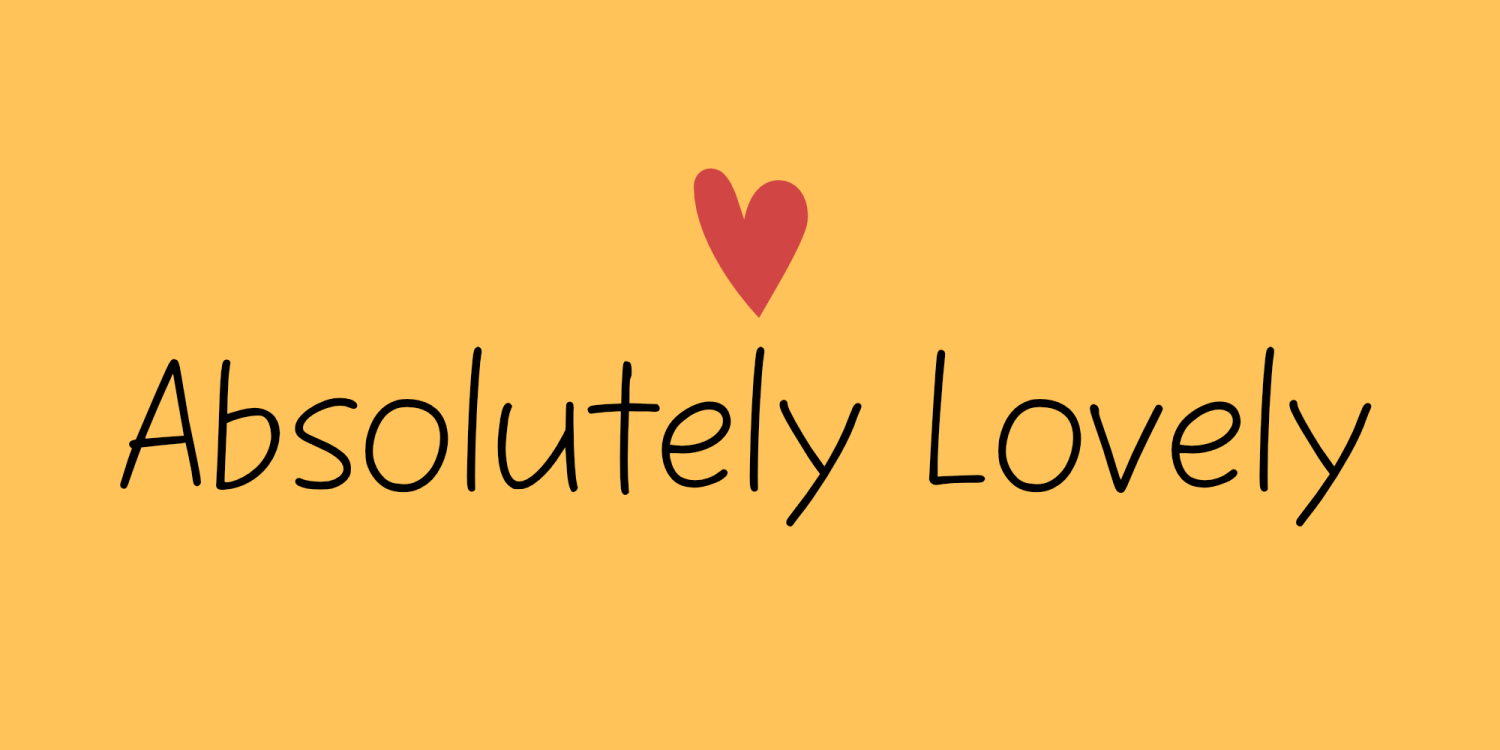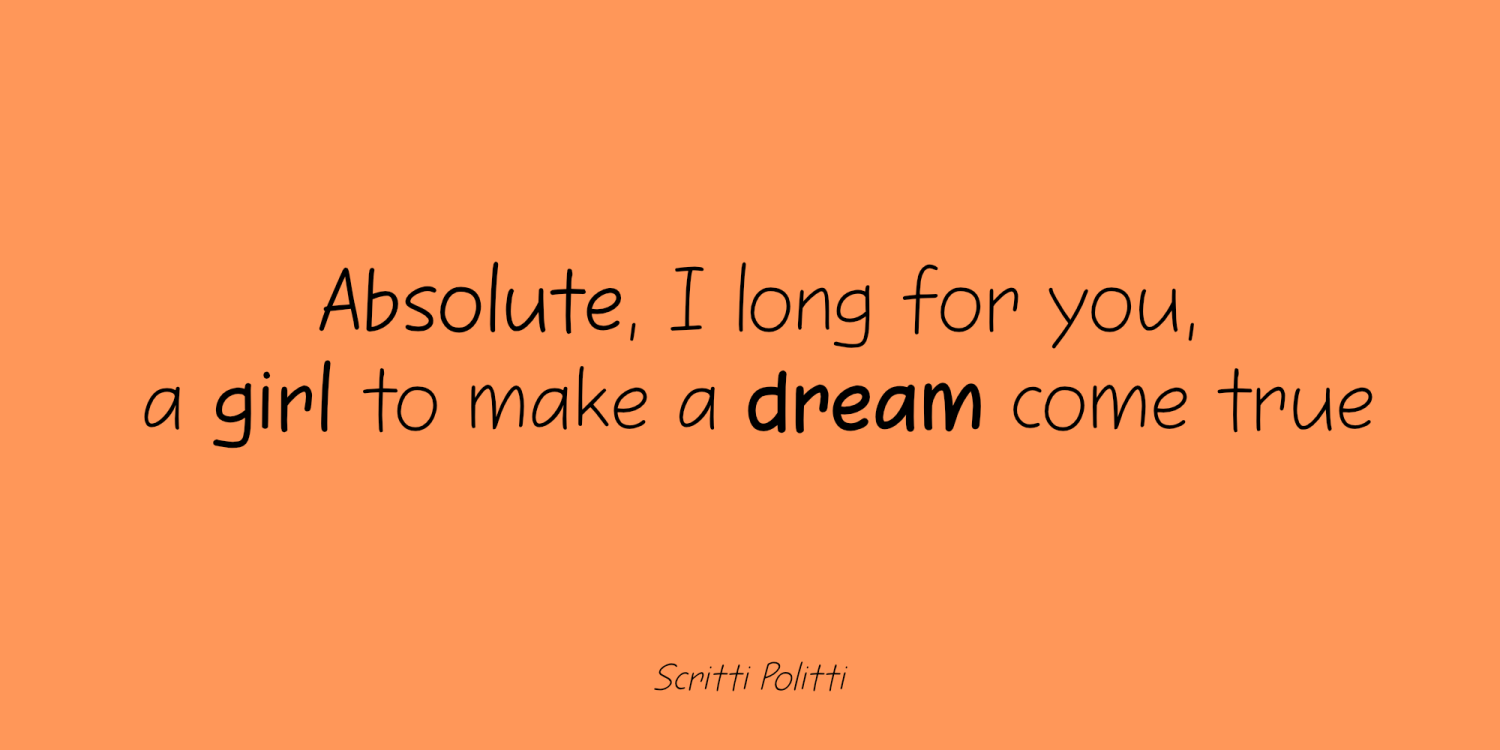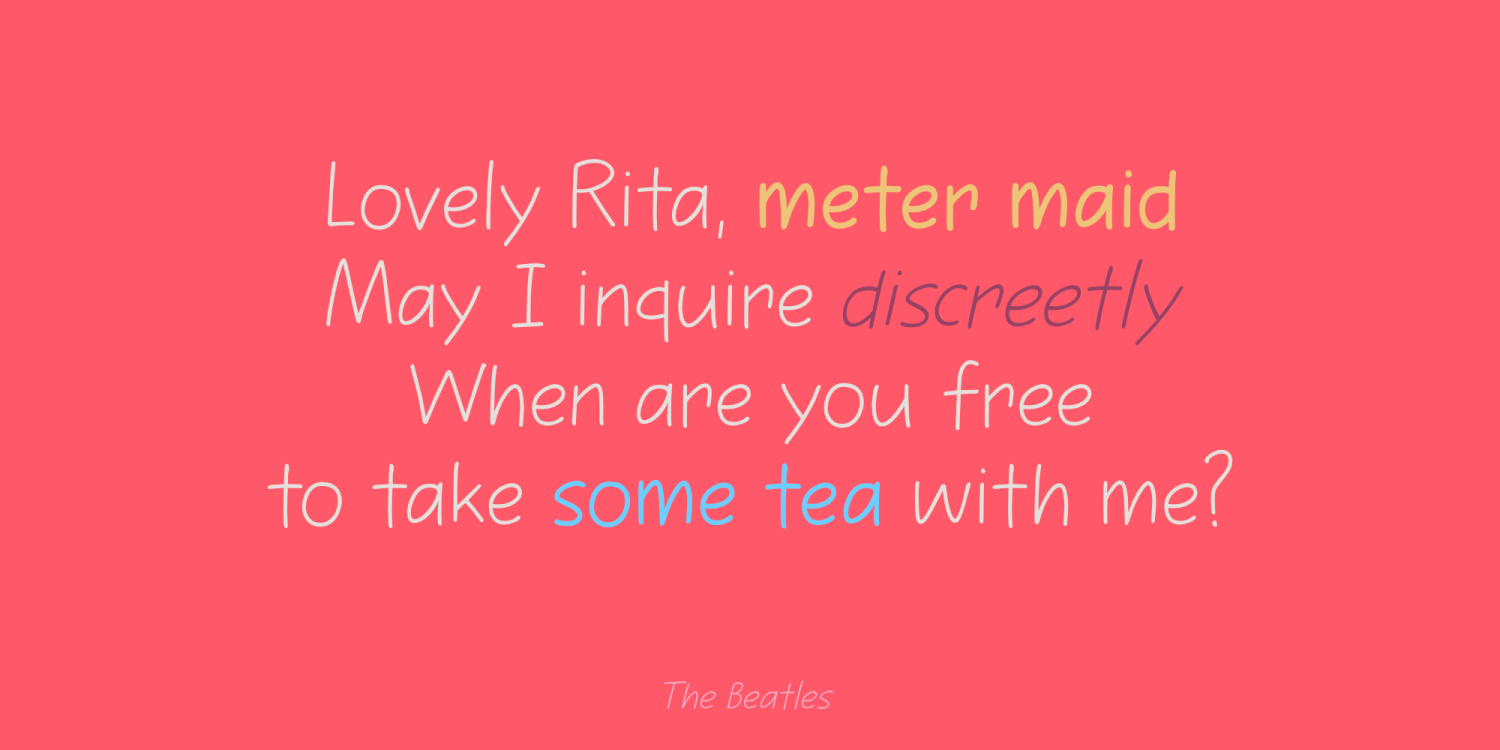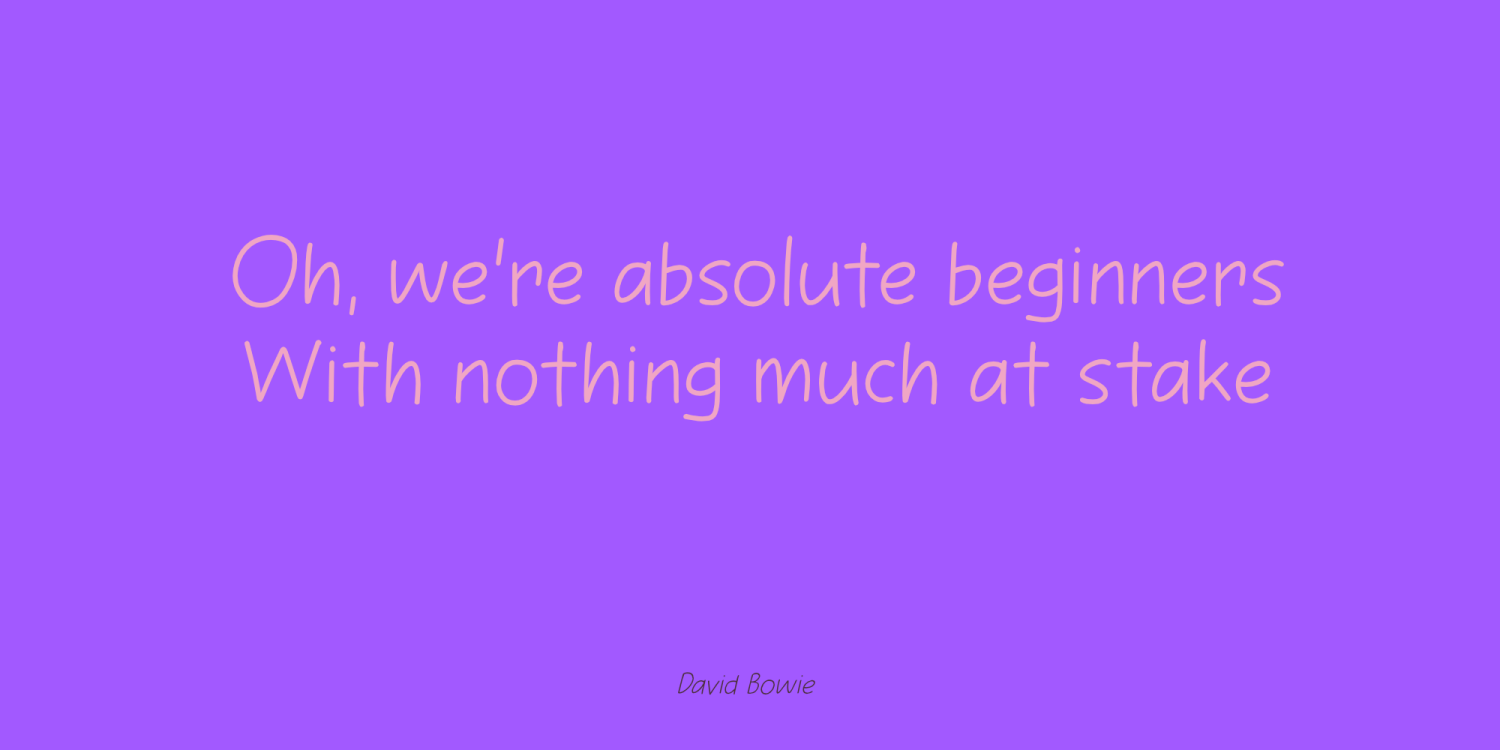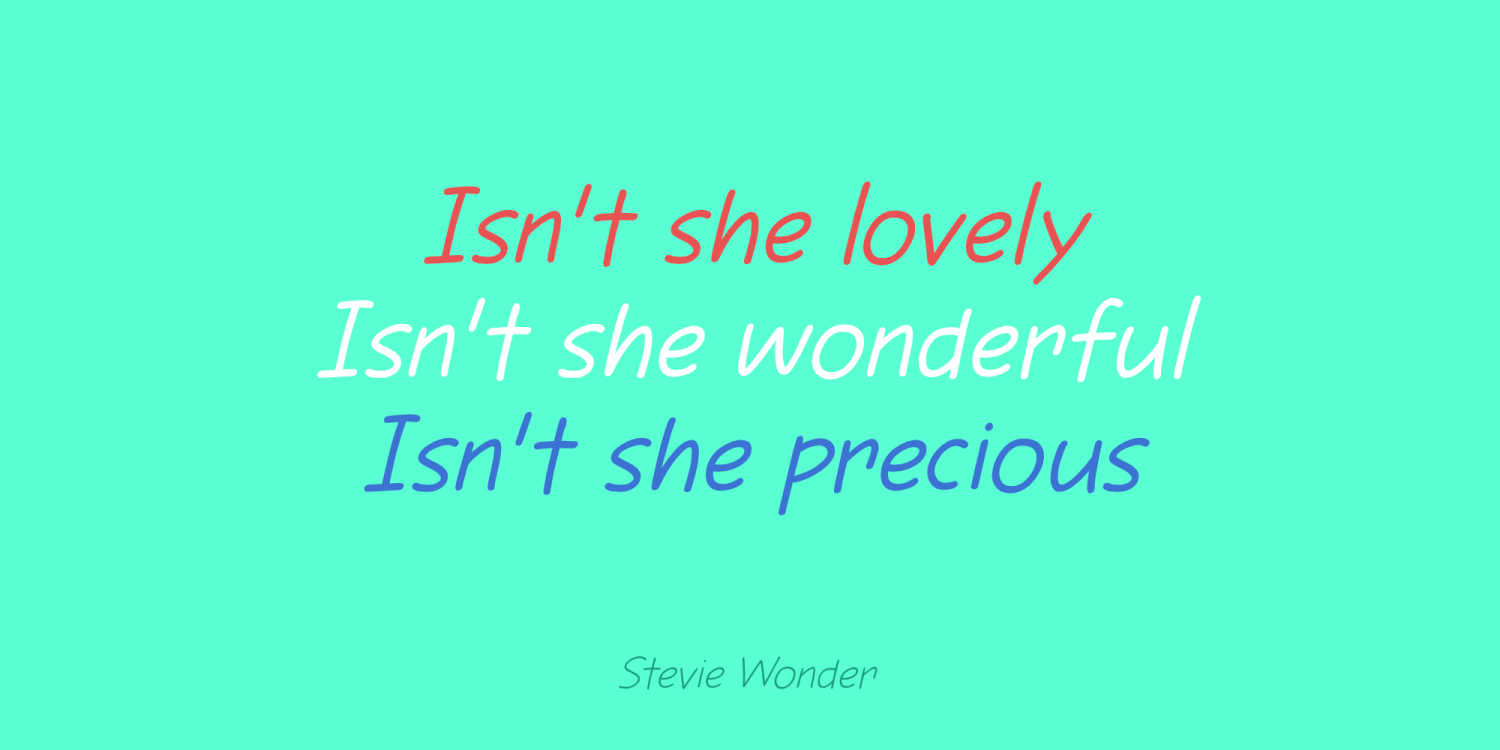
Absolutely Lovely
With so much bad news going on in the world today, I thought a lovely font with an absolutely lovely name was what the masses needed. Besides that, a friend told me that Mercury Retrograde starts on Saturday, March 15th, so you can use this font when everything in your life descends into chaos! ;-)
Absolutely Lovely is a handmade font. It comes with three weights, each with their italic style.